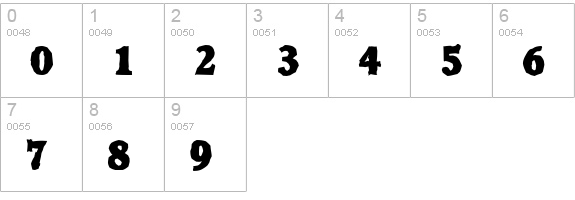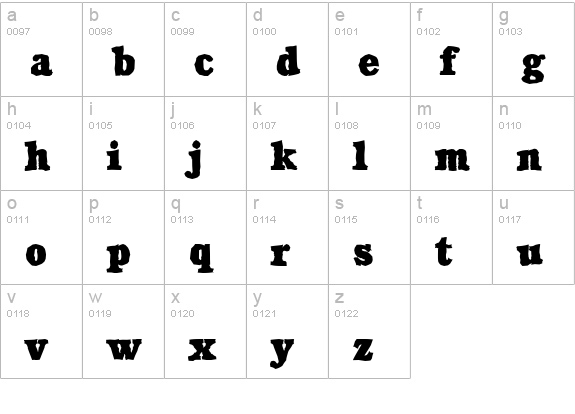
CalgaryAntique-Heavy-Regular is a heavy, high-impact variant in the CalgaryAntique typeface family \xE2\x80\x94 well suited to high-impact headlines, posters, and display advertising.
CalgaryAntique-Heavy-Regular font is a timeless and elegant typeface that exudes a sense of nostalgia and sophistication. Its antique-inspired design features intricate details and a classic yet bold appearance that commands attention. This font is perfect for creating vintage-inspired designs, elegant branding, or adding a touch of old-world charm to any project. And the best part? CalgaryAntique-Heavy-Regular font is freely available to download at FontsMarket.com. Embrace the beauty of the past with this stunning font that will elevate your designs to a whole new level. Add a touch of history and elegance to your projects with CalgaryAntique-Heavy-Regular font today!